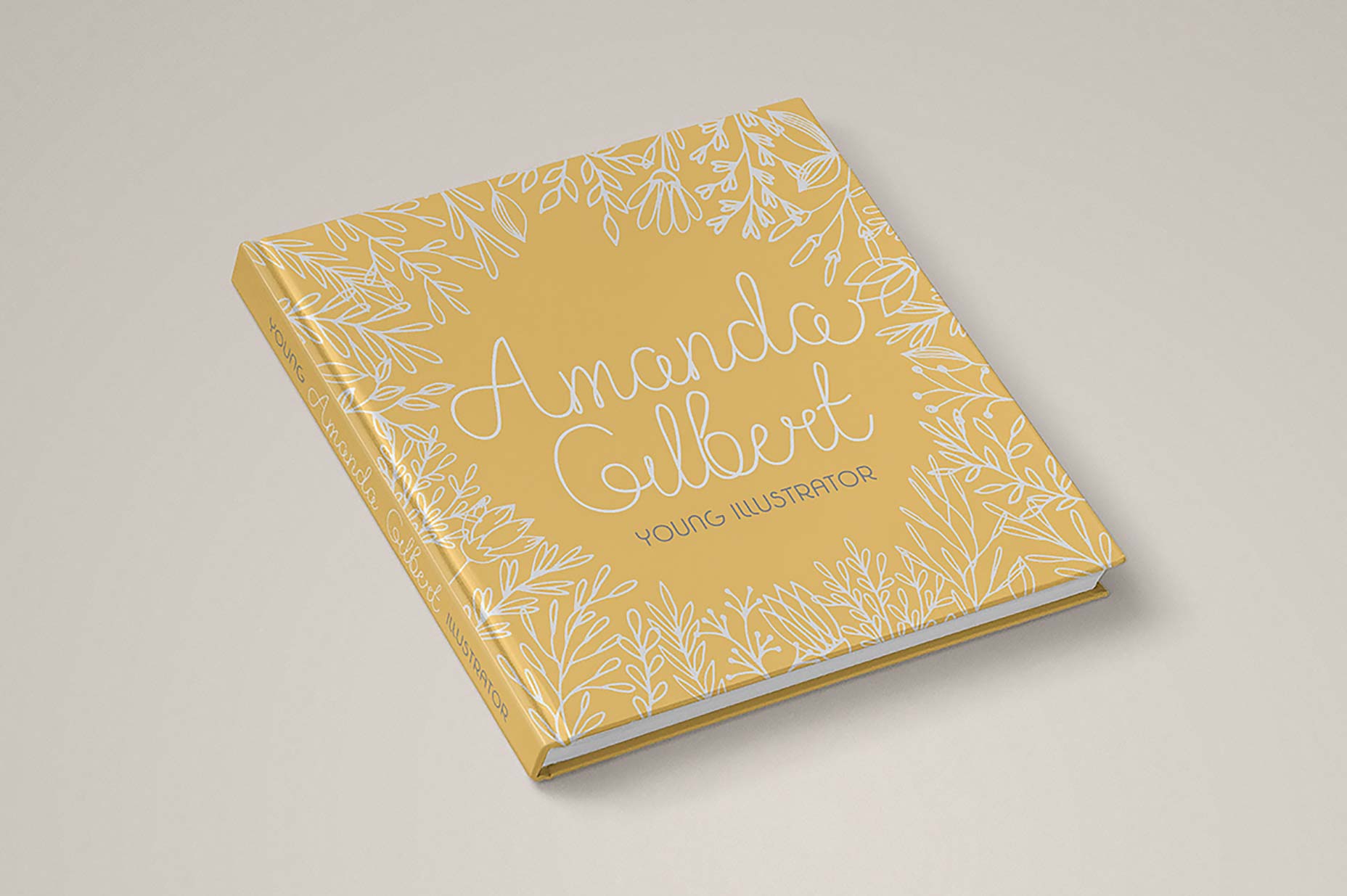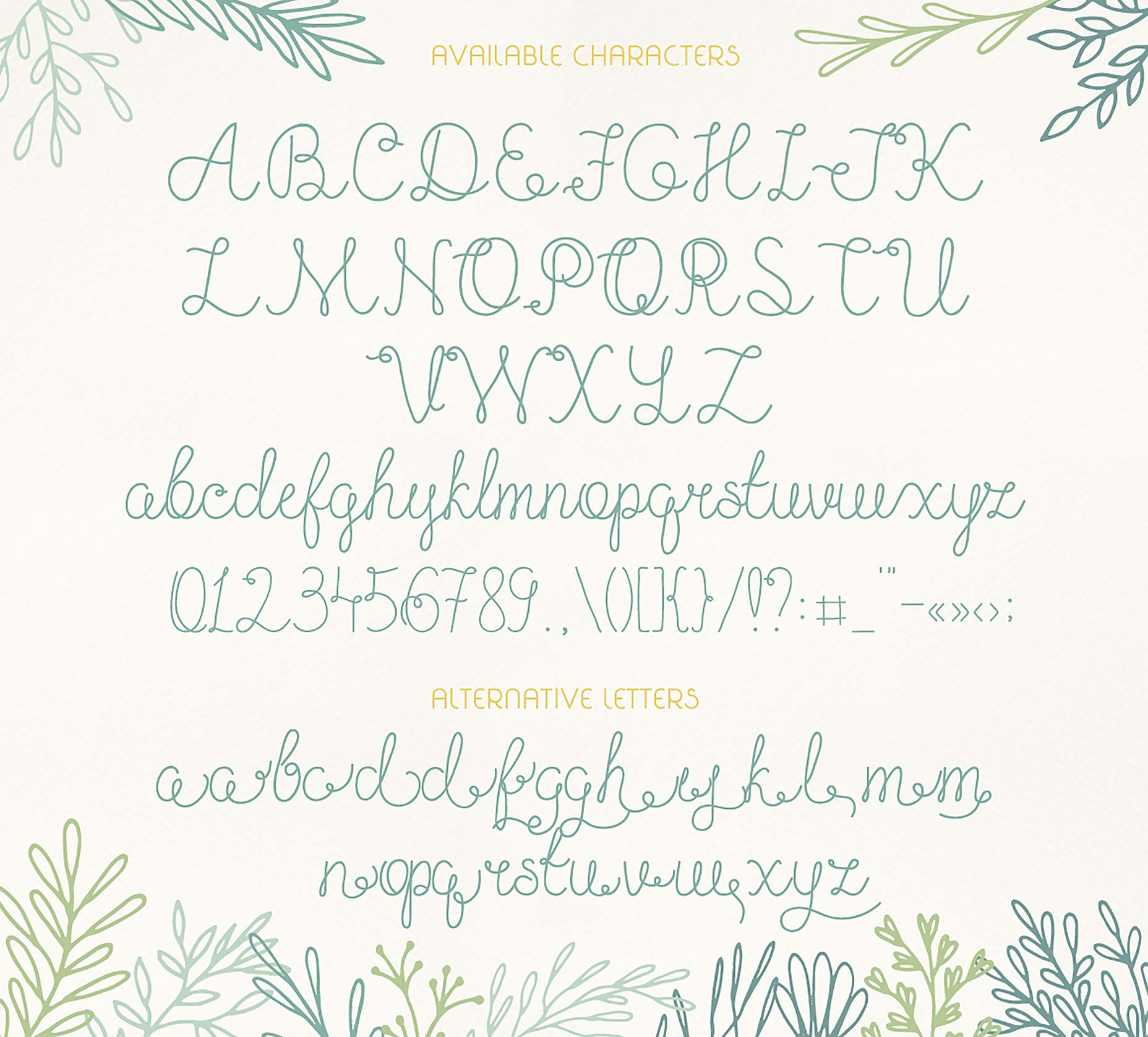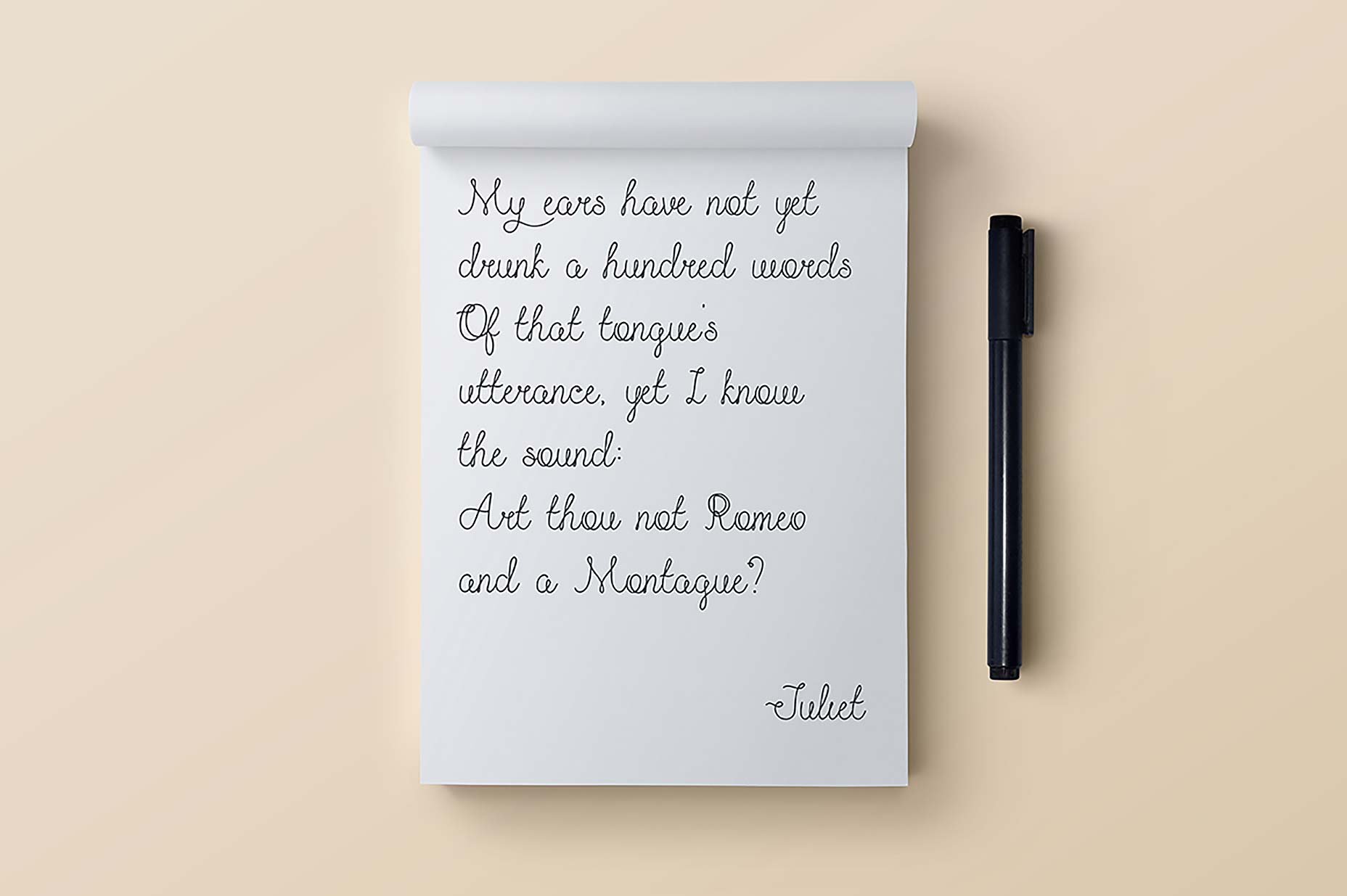
Olesia is a script typeface with a difference: its extra loops and curly swashes, on letters like ‘b’ and ‘E’, add a charmingly care-free air that it lends to any design it’s used in.
Ideal as a display face, whenever you need to inject a natural, feminine, or romantic, feel into a design. Perfect for healthy food packaging, travel guides, or even a fahsion brand, use Olesia to make that all-important human connection between company and user.
Packed with personality, the generous proportions and distinctive letter forms, make Olesia a highly-usable script face.